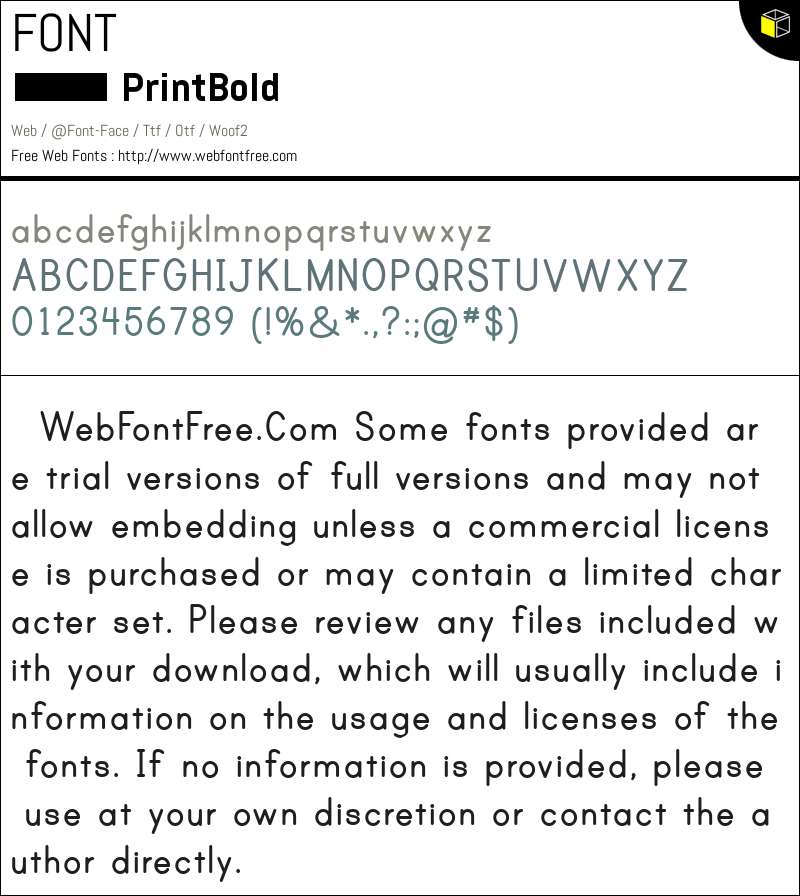
Download Print Bold Font . A great choice for highlighting your design elements. download print bold regular for free. primer is a typeface inspired by printing instruction papers. To access a barred j, a hooked 1 and a hooked q, use your application’s stylistic alternates. download print bold font. ️ this font has been downloaded 10,000+ times. Print bold is a bold basic, sans serif font designed by jess latham. print bold font free download. Enhance your design and grab attention with our selection of strong and impactful. make a statement with bold fonts! download print bold for free, view sample text, rating and more on fontsgeek.com. Print bold by copyright [c] 2006 by jess latham. See how to download print bold for free! download and install the print bold font for free from ffonts.net.
Print bold is a bold basic, sans serif font designed by jess latham. ️ this font has been downloaded 10,000+ times. make a statement with bold fonts! A great choice for highlighting your design elements. print bold font free download. download print bold for free, view sample text, rating and more on fontsgeek.com. download and install the print bold font for free from ffonts.net. Print bold by copyright [c] 2006 by jess latham. Enhance your design and grab attention with our selection of strong and impactful. To access a barred j, a hooked 1 and a hooked q, use your application’s stylistic alternates.
Download Print Bold Font download print bold for free, view sample text, rating and more on fontsgeek.com. Print bold by copyright [c] 2006 by jess latham. print bold font free download. download and install the print bold font for free from ffonts.net. download print bold regular for free. See how to download print bold for free! make a statement with bold fonts! download print bold font. A great choice for highlighting your design elements. primer is a typeface inspired by printing instruction papers. Print bold is a bold basic, sans serif font designed by jess latham. To access a barred j, a hooked 1 and a hooked q, use your application’s stylistic alternates. download print bold for free, view sample text, rating and more on fontsgeek.com. Enhance your design and grab attention with our selection of strong and impactful. ️ this font has been downloaded 10,000+ times. print bold font free download.
Identifont Segoe Print Bold Download Print Bold Font Enhance your design and grab attention with our selection of strong and impactful. Print bold by copyright [c] 2006 by jess latham. make a statement with bold fonts! primer is a typeface inspired by printing instruction papers. Print bold is a bold basic, sans serif font designed by jess latham. See how to download print bold for free!. Download Print Bold Font.
Download free Segoe Print font, free Segoe_Print_Bold.ttf Bold font for Download Print Bold Font download print bold for free, view sample text, rating and more on fontsgeek.com. Print bold is a bold basic, sans serif font designed by jess latham. make a statement with bold fonts! print bold font free download. download print bold font. A great choice for highlighting your design elements. To access a barred j, a hooked. Download Print Bold Font.
The Bold Font Font Download Print Bold Font download and install the print bold font for free from ffonts.net. Print bold by copyright [c] 2006 by jess latham. See how to download print bold for free! Enhance your design and grab attention with our selection of strong and impactful. To access a barred j, a hooked 1 and a hooked q, use your application’s stylistic alternates. . Download Print Bold Font.
7 Best Retro Bold Script Font Figuree Studio Download Print Bold Font print bold font free download. Enhance your design and grab attention with our selection of strong and impactful. download print bold for free, view sample text, rating and more on fontsgeek.com. download and install the print bold font for free from ffonts.net. ️ this font has been downloaded 10,000+ times. print bold font free download. Print. Download Print Bold Font.
Bold fonts tips and inspiration to master the trend Design Ledger Download Print Bold Font To access a barred j, a hooked 1 and a hooked q, use your application’s stylistic alternates. Print bold by copyright [c] 2006 by jess latham. primer is a typeface inspired by printing instruction papers. download print bold regular for free. A great choice for highlighting your design elements. make a statement with bold fonts! download. Download Print Bold Font.
Rosther Bold Script Font Download Fonts Download Print Bold Font See how to download print bold for free! make a statement with bold fonts! primer is a typeface inspired by printing instruction papers. A great choice for highlighting your design elements. print bold font free download. download and install the print bold font for free from ffonts.net. Print bold is a bold basic, sans serif font. Download Print Bold Font.